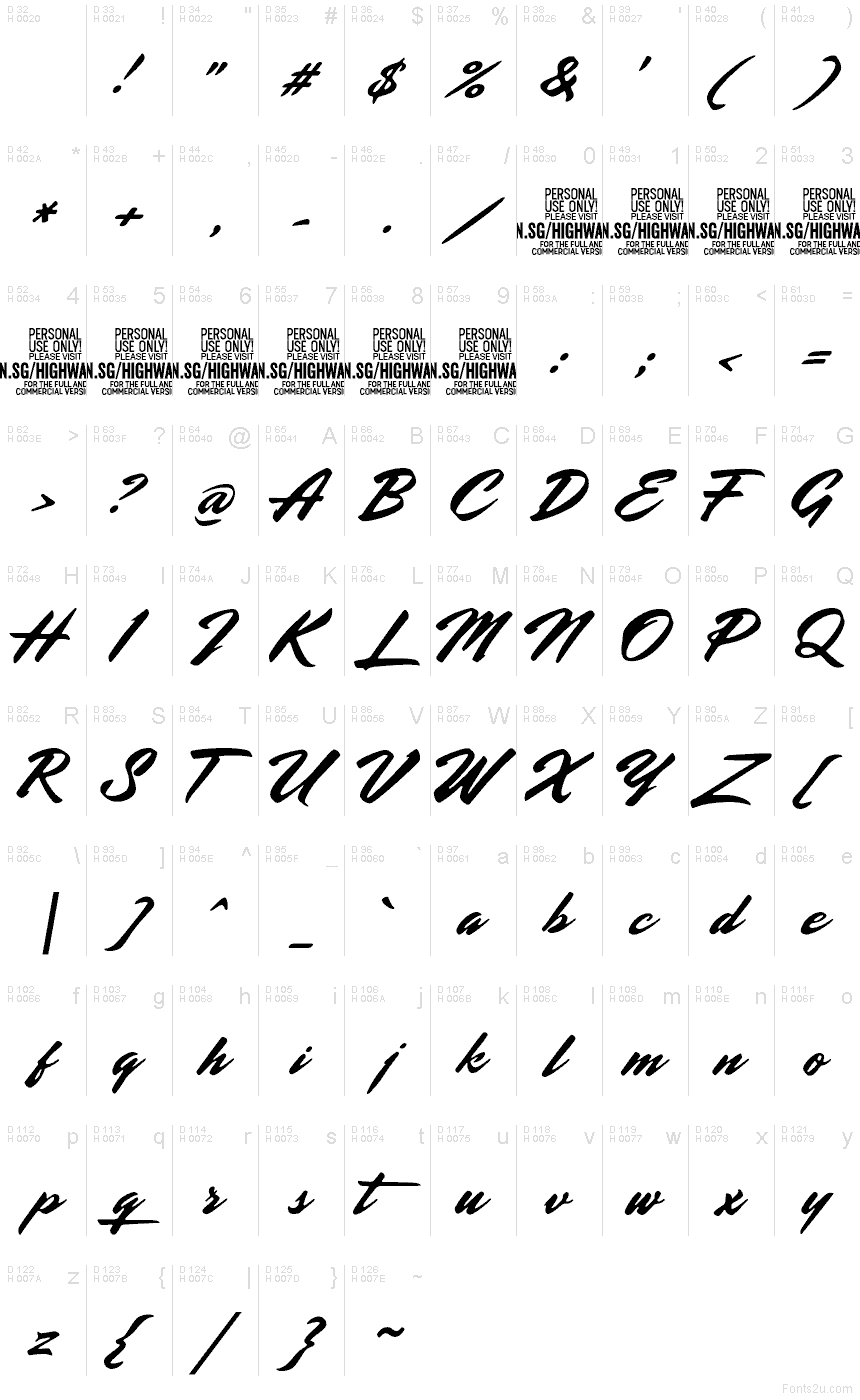
Highway Man Clean PERSONAL USE Regular
Highway Man Clean font, designed by Mans Greback, is a brush typeface marked by its high-speed and intense style. Drawing inspiration from vintage automotive culture and classic racing aesthetics, the font beautifully balances a retro charm with modern appeal. It has expressive, fluid motion making it both romantic and elegant.